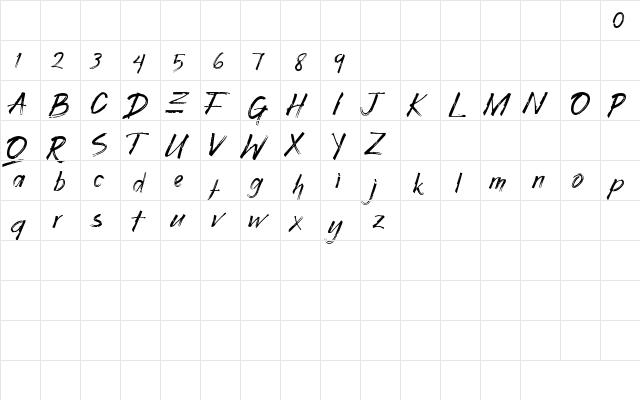
Gothix Regular
Design Context for Gothix Typeface
Gothix is a composed and adaptable typeface that performs quietly and consistently across a wide range of design contexts.